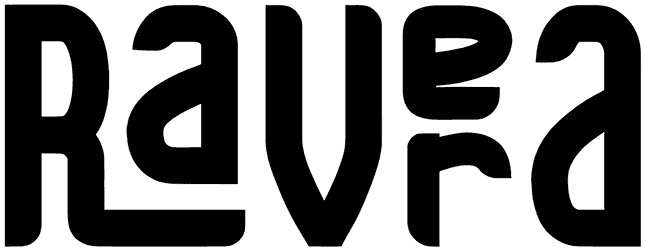
Ravera Font
You find no professional designer who would say no to the chance of using a modern font as excellent as Ravera in their projects. Clothes store logos, coffee shop signs, and labels on handmade crafts, Ravera can do it all.
By the looks of it, this typography font goes out of its way to be visually attractive and highlight your text. That even includes having a backup eroded style in case you want to try something different than the regular.